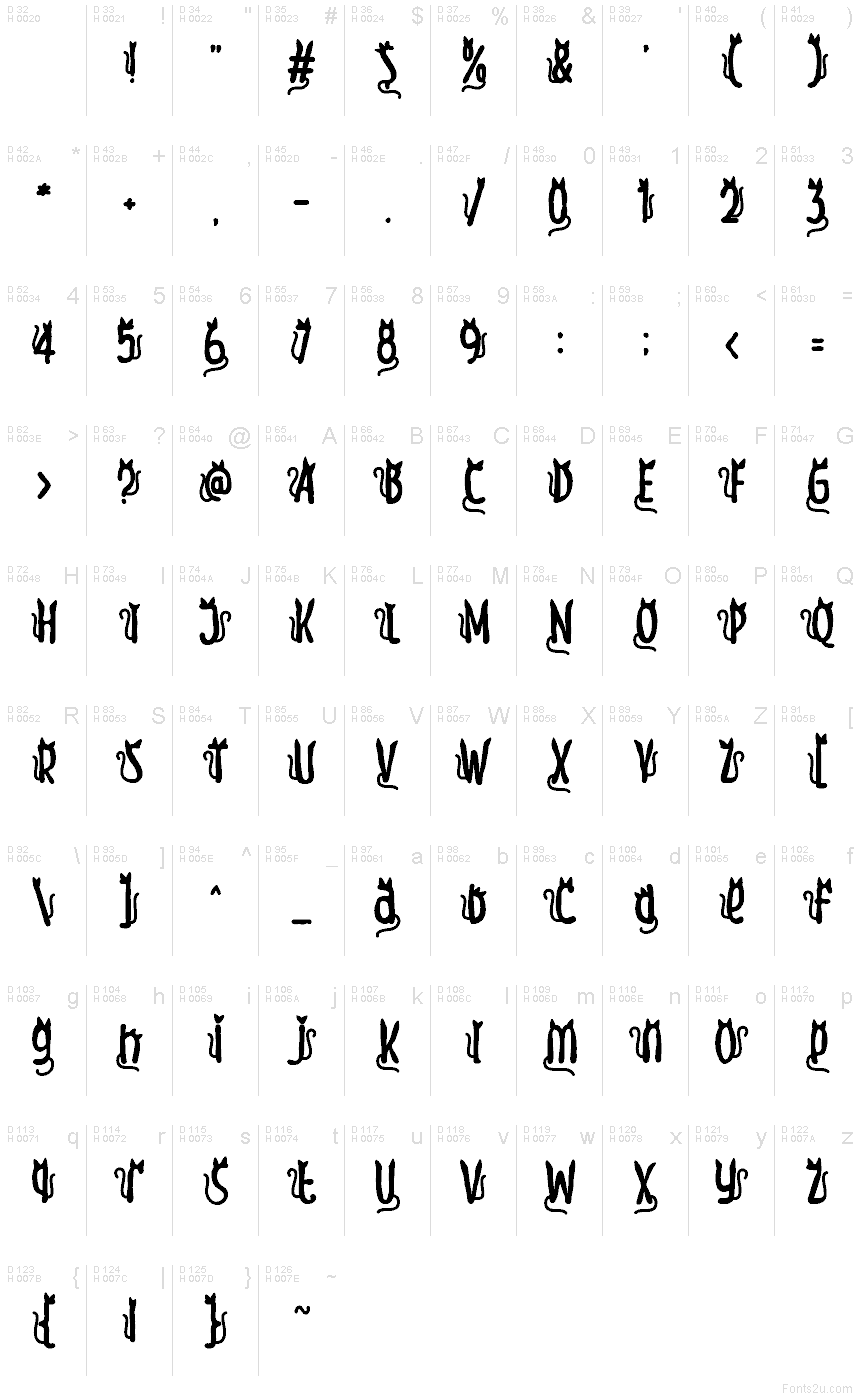
Meow Zilla Cat 2
Meow Zilla Cat 2 font by PutraCetol Studio is a free decorative display font from the Meow Zilla family. Built around a playful cat motif, it weaves in whisker-like terminals, ear-tipped stems, and swishy tail endings that curl with inky, hand-drawn energy. Its bouncy rhythm and chunky strokes give headlines a mischievous, pawprint vibe while staying legible at larger sizes.
This free font shines on kids’ party invites, cat café menus, pet store branding, playful packaging, Halloween posters, and YouTube thumbnails for animal channels. Using Meow Zilla Cat 2 adds instant character without extra illustration—just set it big, add generous line spacing, and let the tails do the talking. Pair with a clean rounded sans to keep the copy readable and let the feline flourishes lead.